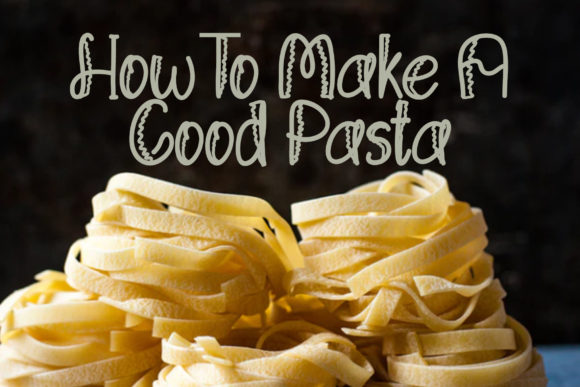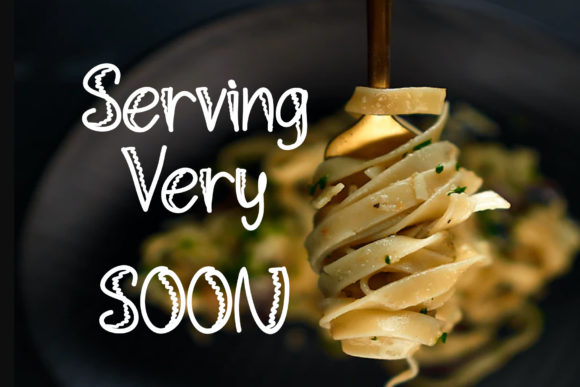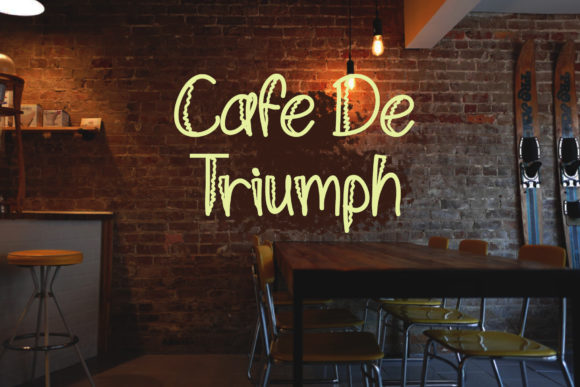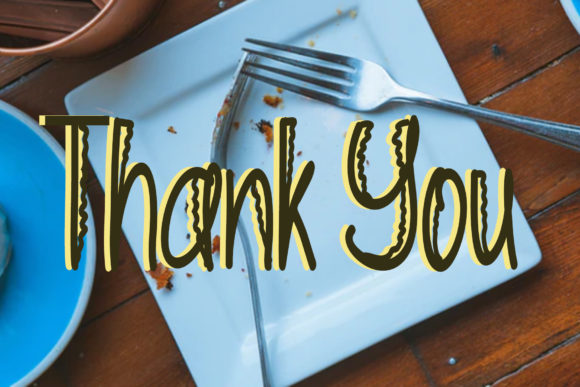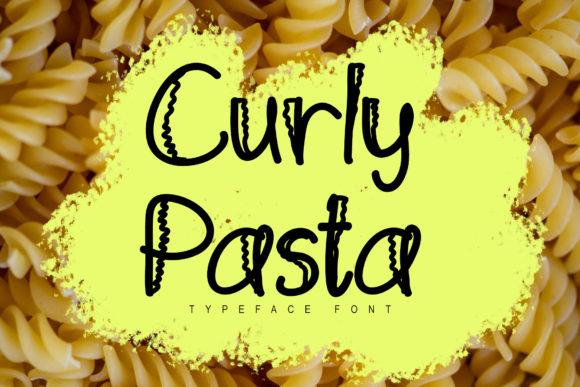
Introducing Curly Pasta Font: The Ultimate Display Font for Creative Designs
Are you a designer, crafter, or digital artist looking for a unique and versatile font to elevate your creative projects? Look no further than Curly Pasta Font! This stunning display font is perfect for a wide range of applications, from crafting and digital designing to presentations and greeting card making.
What Makes Curly Pasta Font So Special?
Curly Pasta Font is an incredibly versatile font that boasts a one-of-a-kind style that’s sure to capture attention. Its curly, playful, and whimsical design makes it perfect for creating spectacular designs that stand out from the crowd. Whether you’re looking to add a touch of elegance or a dash of playfulness to your project, Curly Pasta Font is the ideal choice.
Curly Pasta Font is a dream come true for designers and crafters alike. Its unique style lends itself perfectly to a wide range of creative projects, including:
- Crafting: Use Curly Pasta Font to add a personal touch to your handmade crafts, such as scrapbooking, card making, and DIY jewelry.
- Digital Designing: Add a touch of whimsy to your digital designs, including social media graphics, blog posts, and website headers.
- Presentations: Make your presentations stand out with Curly Pasta Font’s unique and eye-catching style.
- Greeting Card Making: Create beautiful and personalized greeting cards for special occasions using Curly Pasta Font.
Key Features of Curly Pasta Font
So, what makes Curly Pasta Font so special? Here are just a few of its key features:
- Unique and Versatile: Curly Pasta Font boasts a one-of-a-kind style that’s perfect for creating unique and eye-catching designs.
- High-Quality Design: Curly Pasta Font is designed with high-quality and precision, ensuring that it looks stunning in any context.
- Easily Readable: Despite its curly and playful design, Curly Pasta Font is surprisingly easy to read, making it perfect for body text and headings.
- Multilingual Support: Curly Pasta Font supports multiple languages, making it perfect for designers and crafters working on international projects.
Tips and Tricks for Using Curly Pasta Font
To get the most out of Curly Pasta Font, here are a few tips and tricks to keep in mind:
- Experiment with Colors: Curly Pasta Font looks stunning in a wide range of colors, so don’t be afraid to experiment and find the perfect hue for your design.
- Mix and Match: Combine Curly Pasta Font with other fonts to create a unique and eye-catching design.
- Use it as a Statement Piece: Use Curly Pasta Font as a statement piece in your design, such as a title or heading, to draw attention and create visual interest.
| Font Name | Curly Pasta Font |
| Author | Ansart |